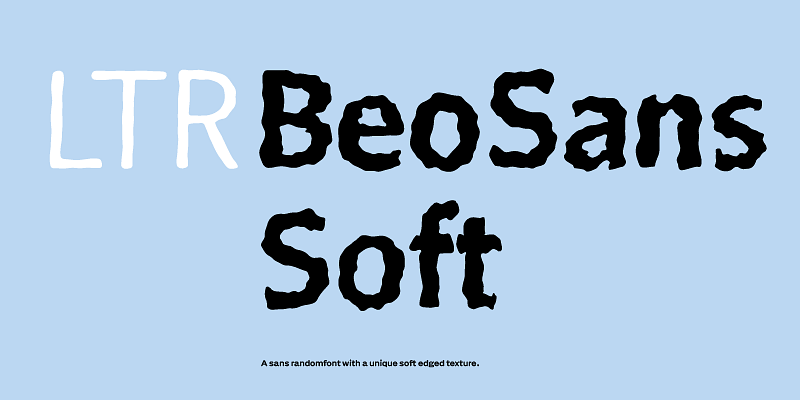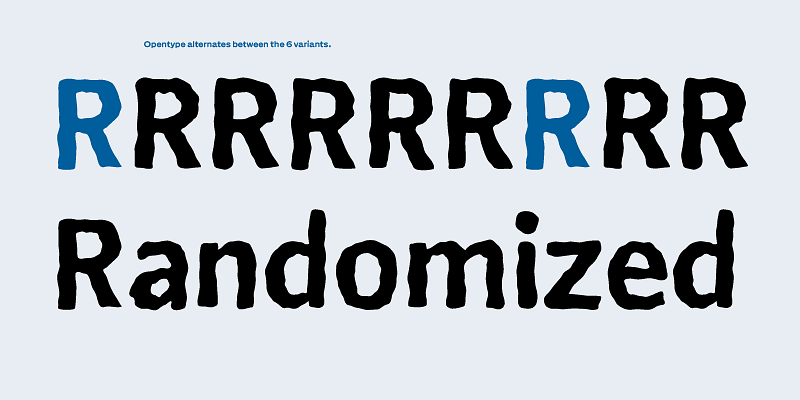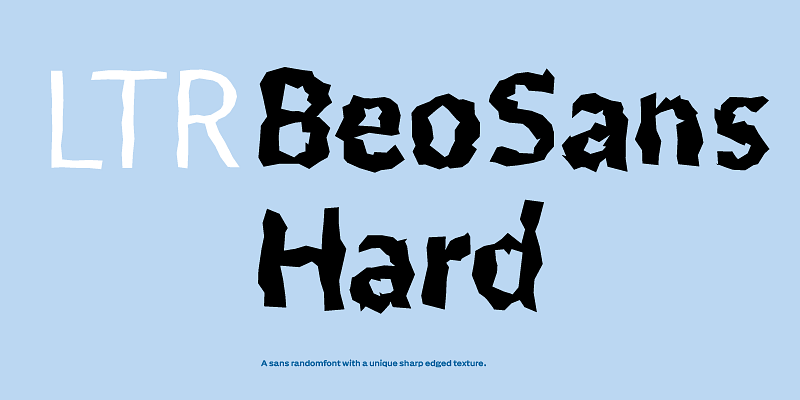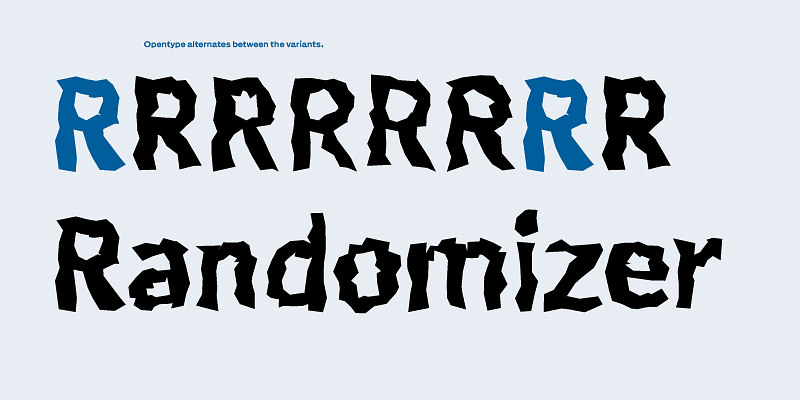
The sans serif alternative to the original Randomfont from 1989, now in a slightly tamer version. Each character in BeoSans cycles through six different iterations so the appearance is still pretty random, but it’s easier on the output device. Available in regular and bold weights, the hard and soft versions each include three degrees of jaggedness (R11, R12, R13) for a total of twelve distinct variations.